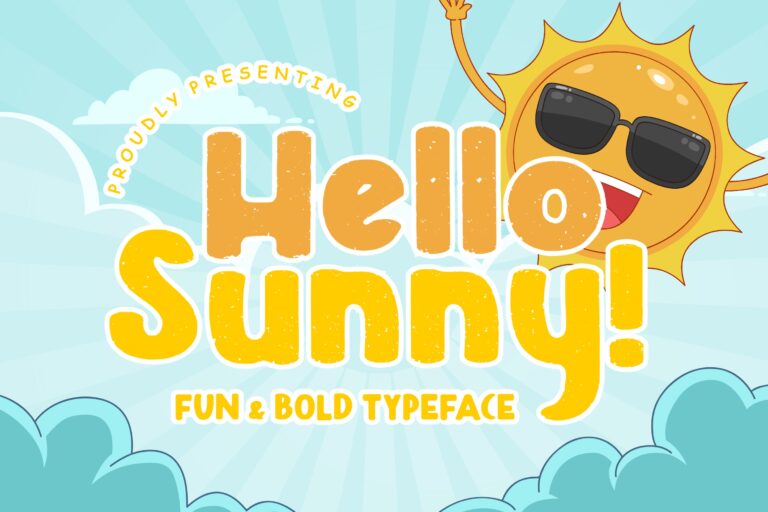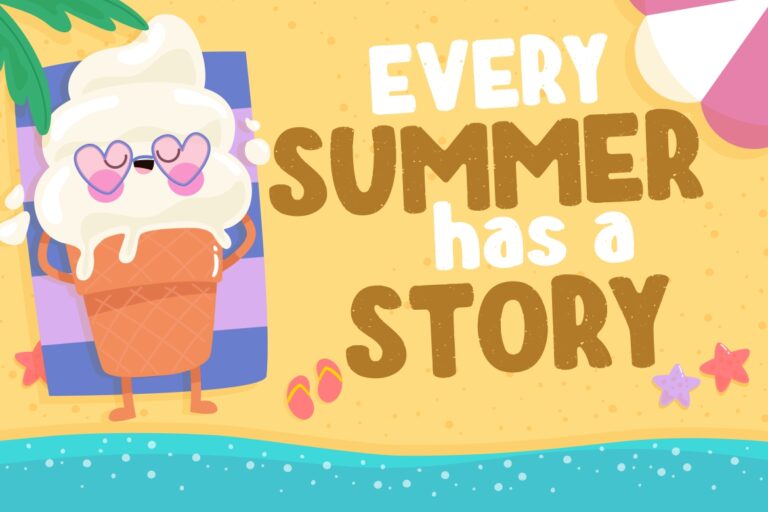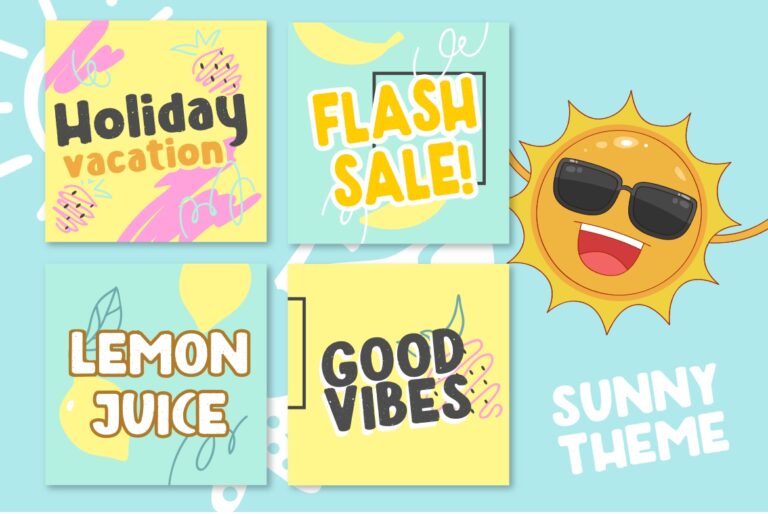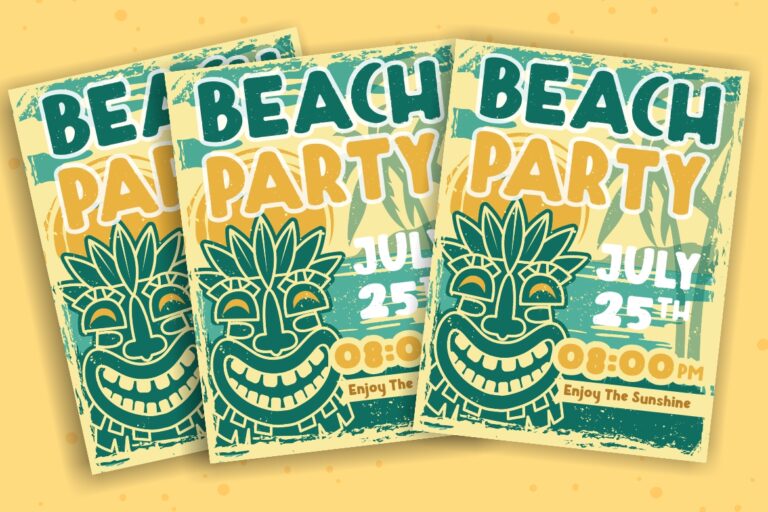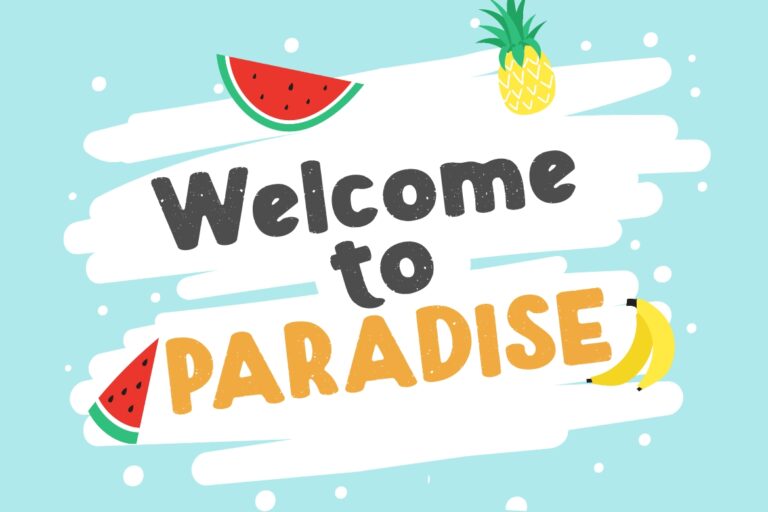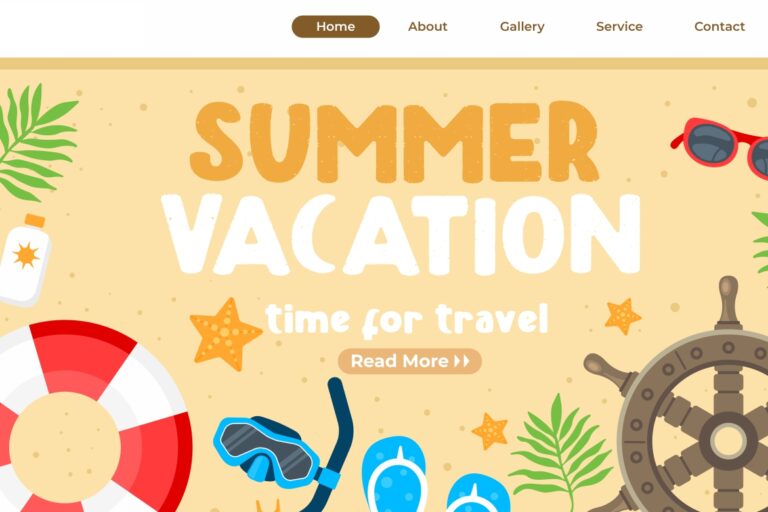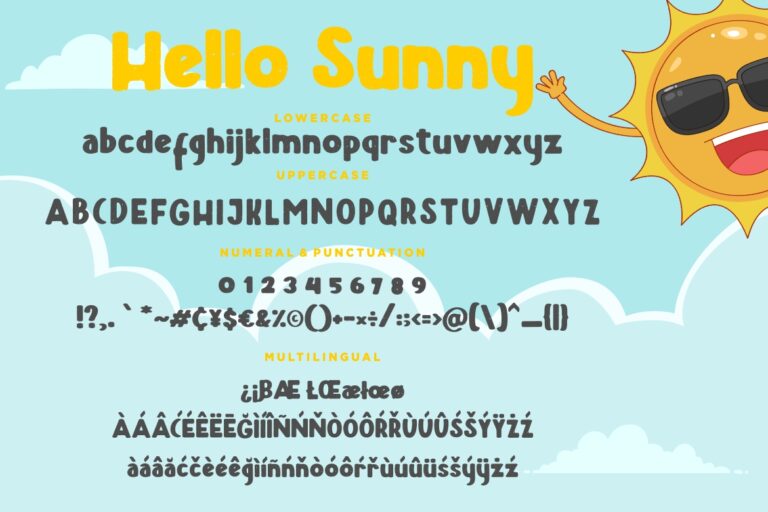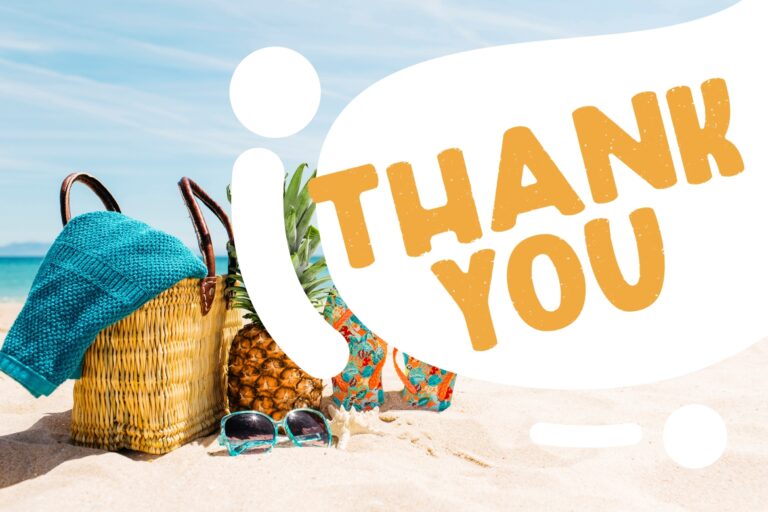
Hello Sunny Fun & Bold Typeface
Hello Sunny is fun & bold font which suitable to use for children occasion and related to summer event.
Hello Sunny is perfect for branding projects, logo, wedding designs, social media posts, advertisements, product packaging, product designs, label, photography, watermark, invitation, stationery and any projects that need handwriting taste.
- Fonts include multilingual support for; ä ö ü Ä Ö Ü ß ¿ ¡